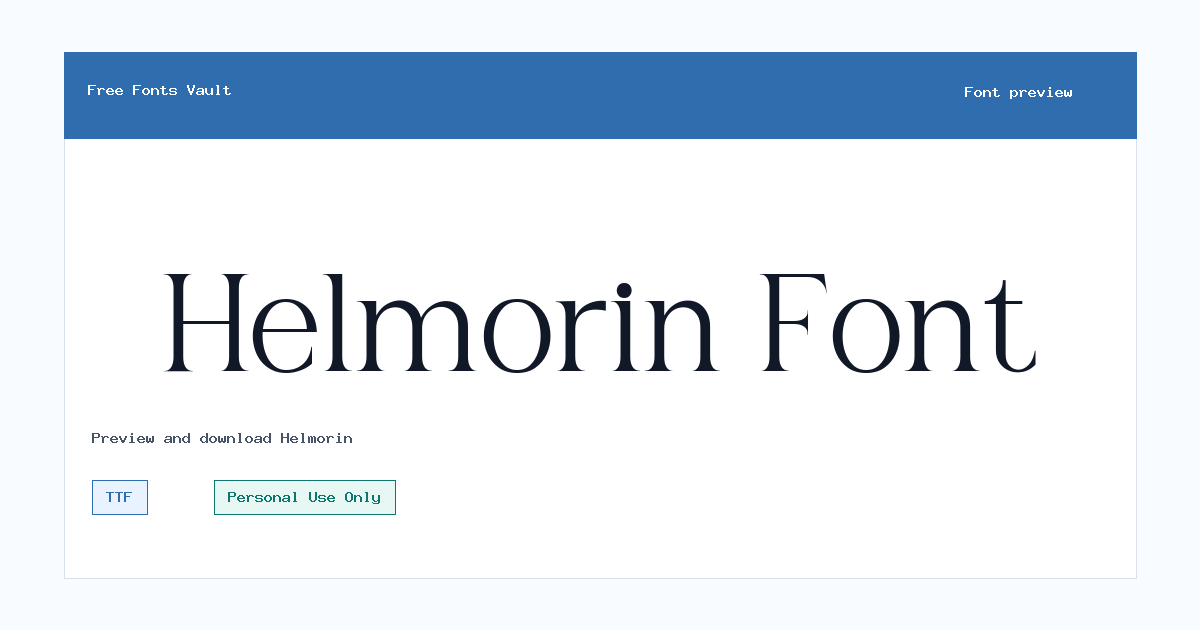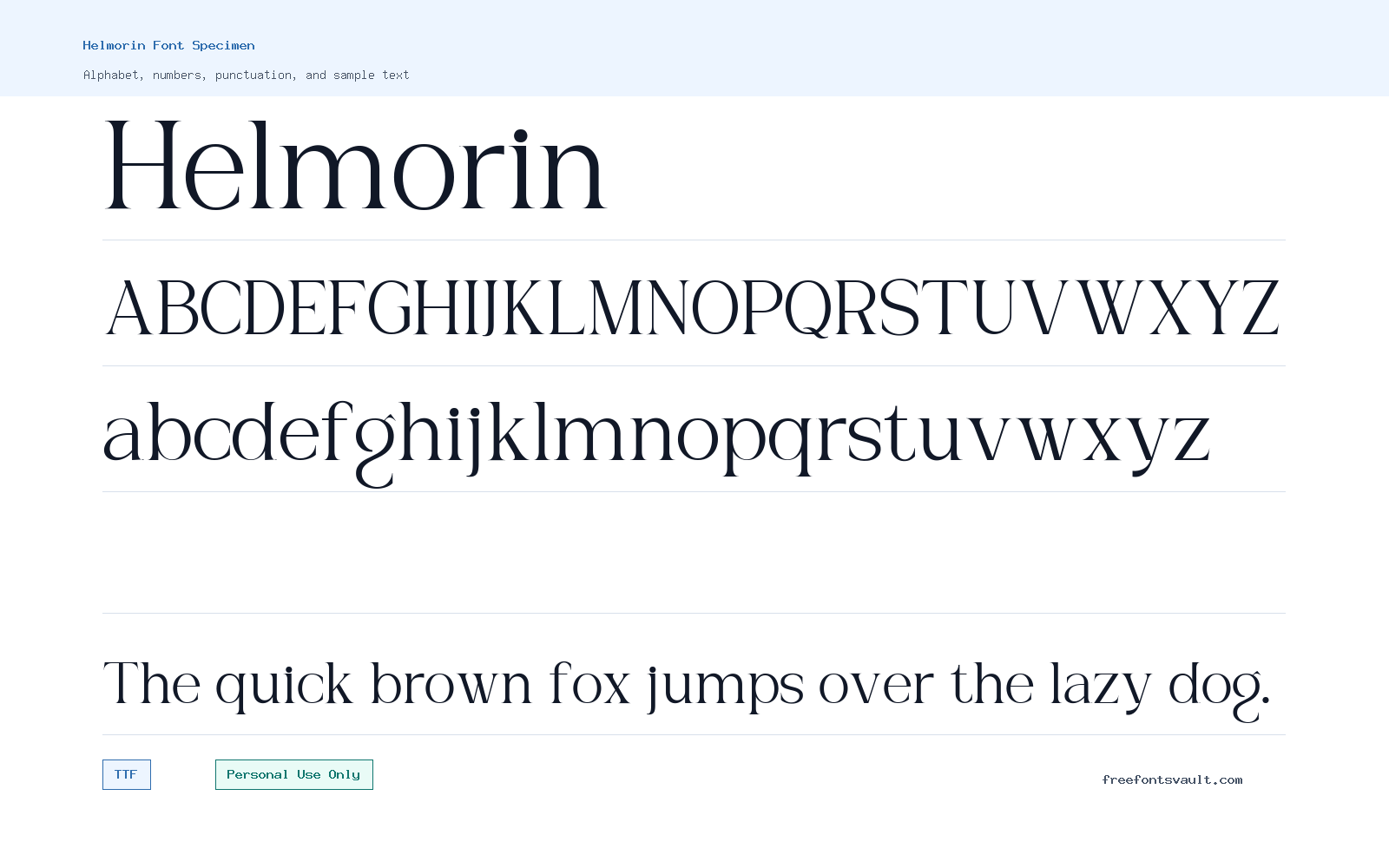
Helmorin
Helmorin font.
Helmorin is a serif display font with a clean, high-contrast look made for short, polished text. It works best when the words are large enough for its thin strokes and elegant letter shapes to show clearly.
About Helmorin Font
Helmorin has the feel of a modern editorial serif: tall letters, slim hairlines, and sharper thick-to-thin contrast. The uppercase set looks narrow and graceful, while the lowercase letters keep a soft, refined rhythm. It is not a heavy everyday reading font, but it can give a title, logo draft, invitation heading, or social graphic a more dressed-up tone without becoming overly decorative.
Use the preview tool with your real text before downloading. Helmorin is strongest in short phrases such as brand names, poster headings, boutique labels, wedding stationery, quote graphics, and elegant web banners. Avoid using it for long paragraphs or very small captions because the thin strokes can lose clarity. The font file is a Regular TTF, and the character set appears focused on basic letters, with very limited punctuation visible in the file, so test names, dates, prices, and symbols before building a final design around it.
- Includes uppercase and lowercase Latin letters, with a limited visible punctuation set
- Elegant titles, logo concepts, invitations, and boutique branding mockups
- Posters, quote images, packaging drafts, and social media graphics with short text
Set Helmorin large, give it enough spacing, and pair it with a simple sans serif or a quiet text serif for supporting copy. Because the glyph set looks limited, check every required character in the preview, especially numbers, currency symbols, accents, and punctuation.
What kind of font is Helmorin?
Helmorin is a serif display font with thin strokes, high contrast, and an elegant look suited to short headings rather than long body text.
Does Helmorin include numbers and symbols?
The inspected font file shows basic uppercase and lowercase letters and very limited punctuation. Test your exact text before using it in a finished layout.